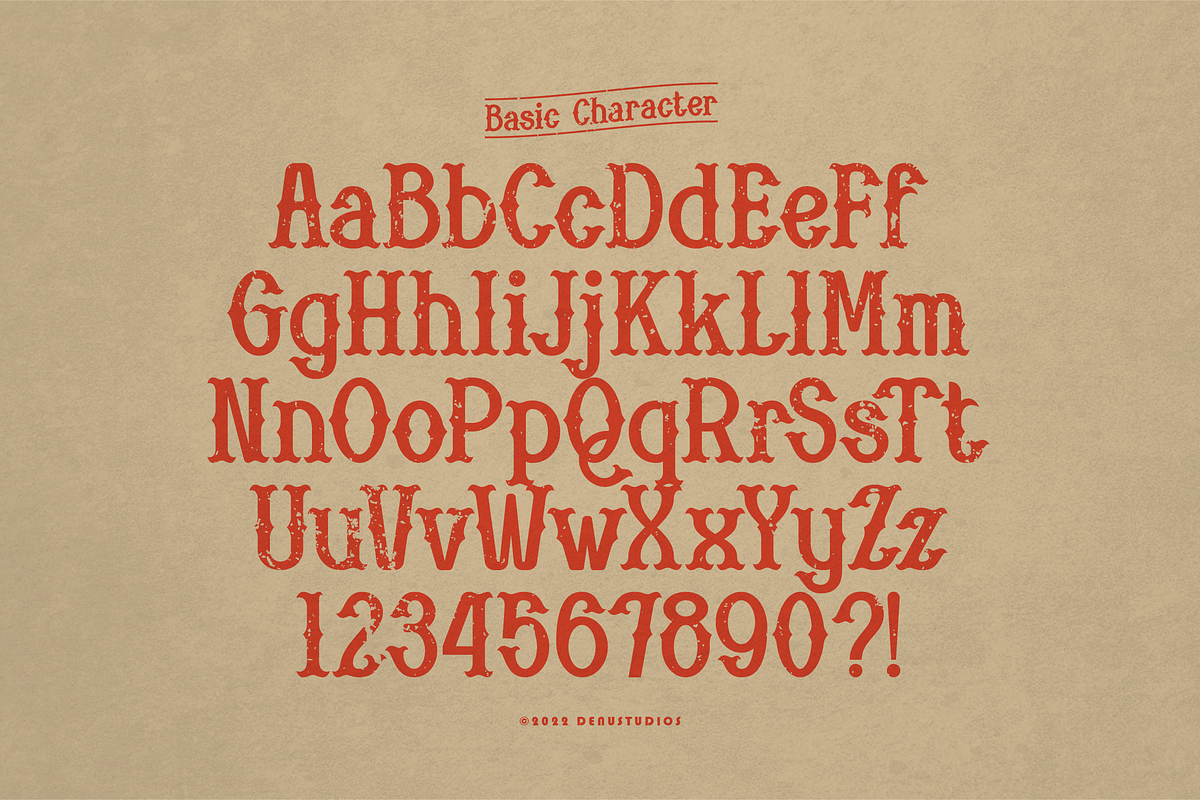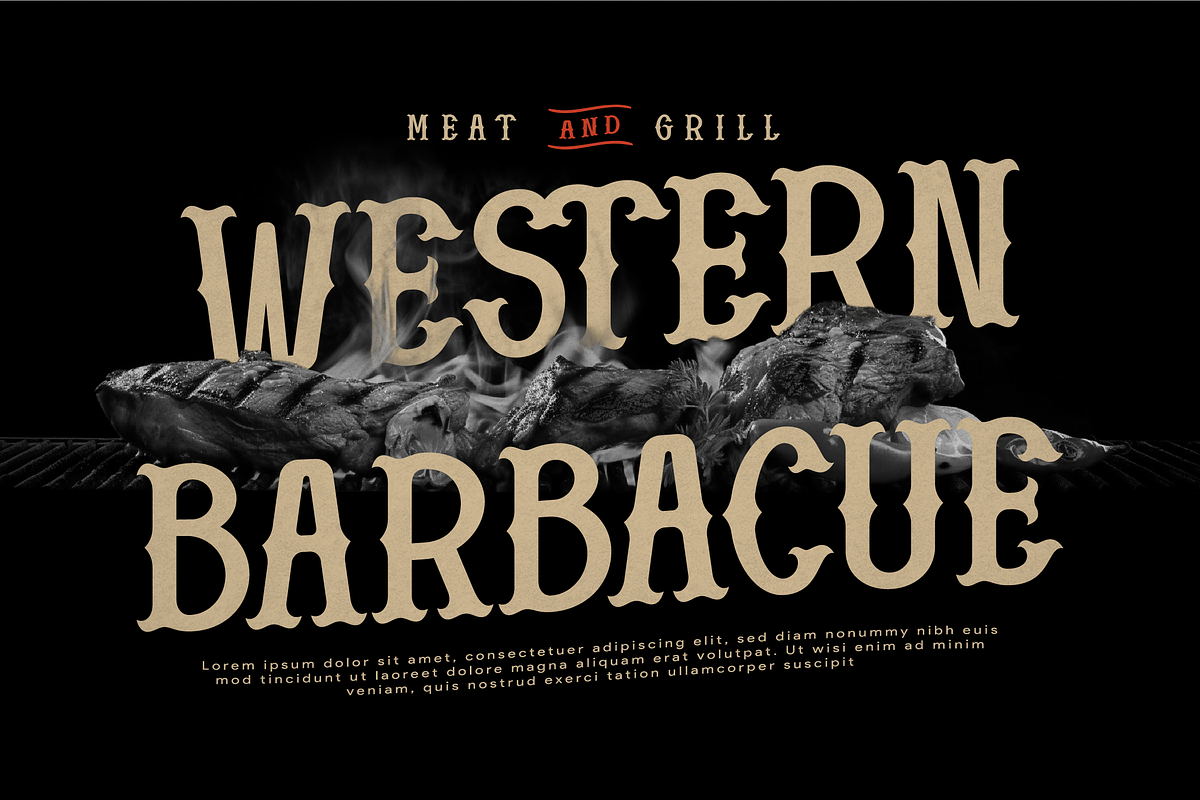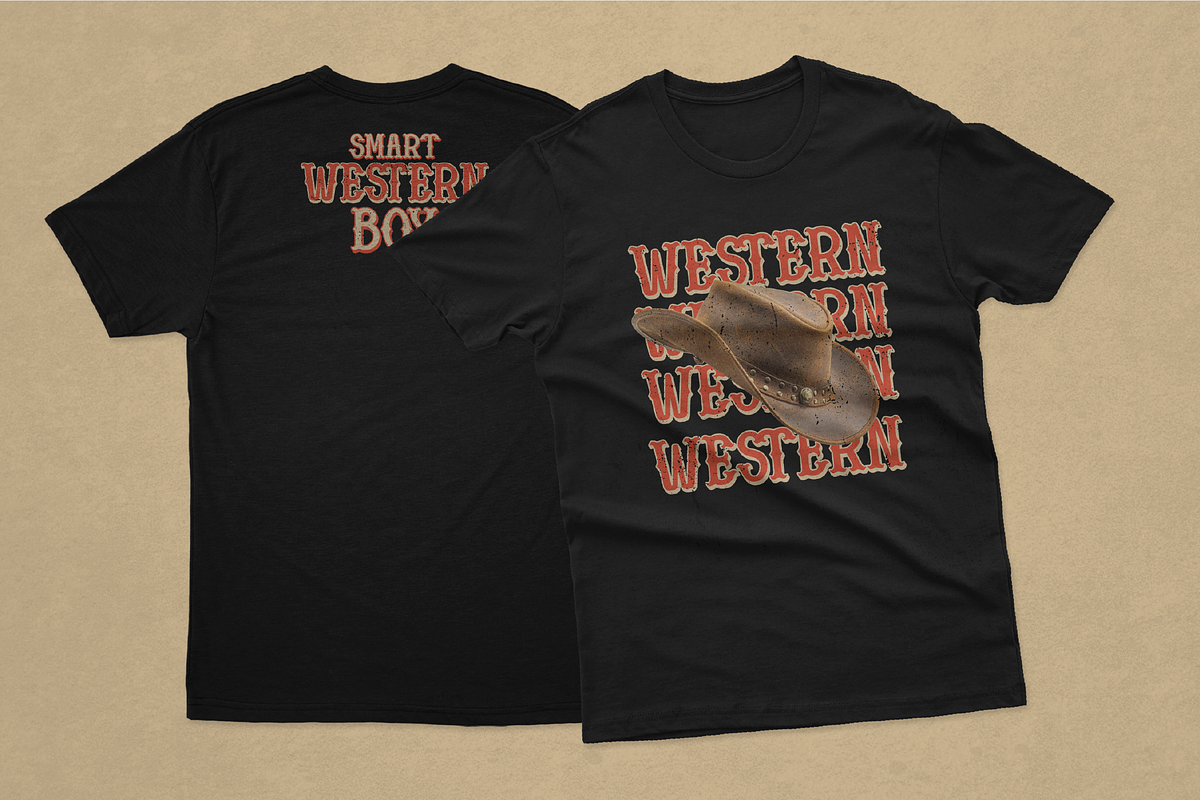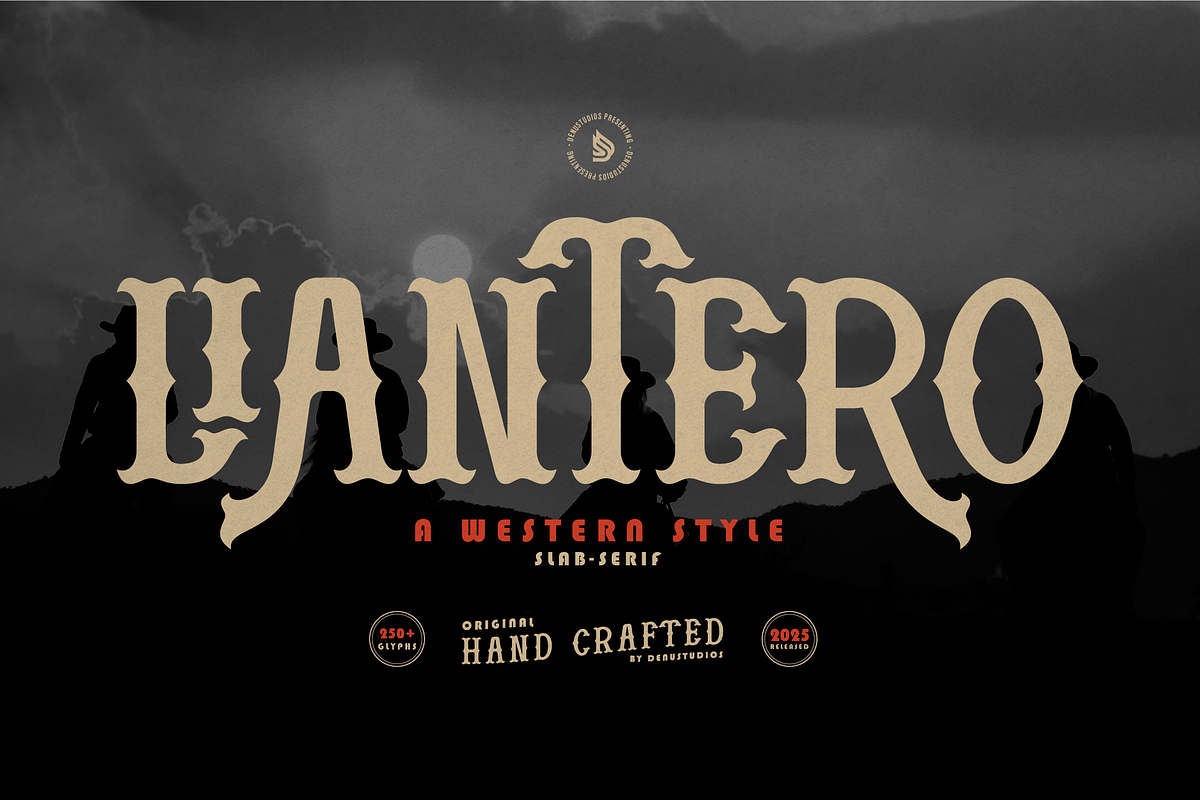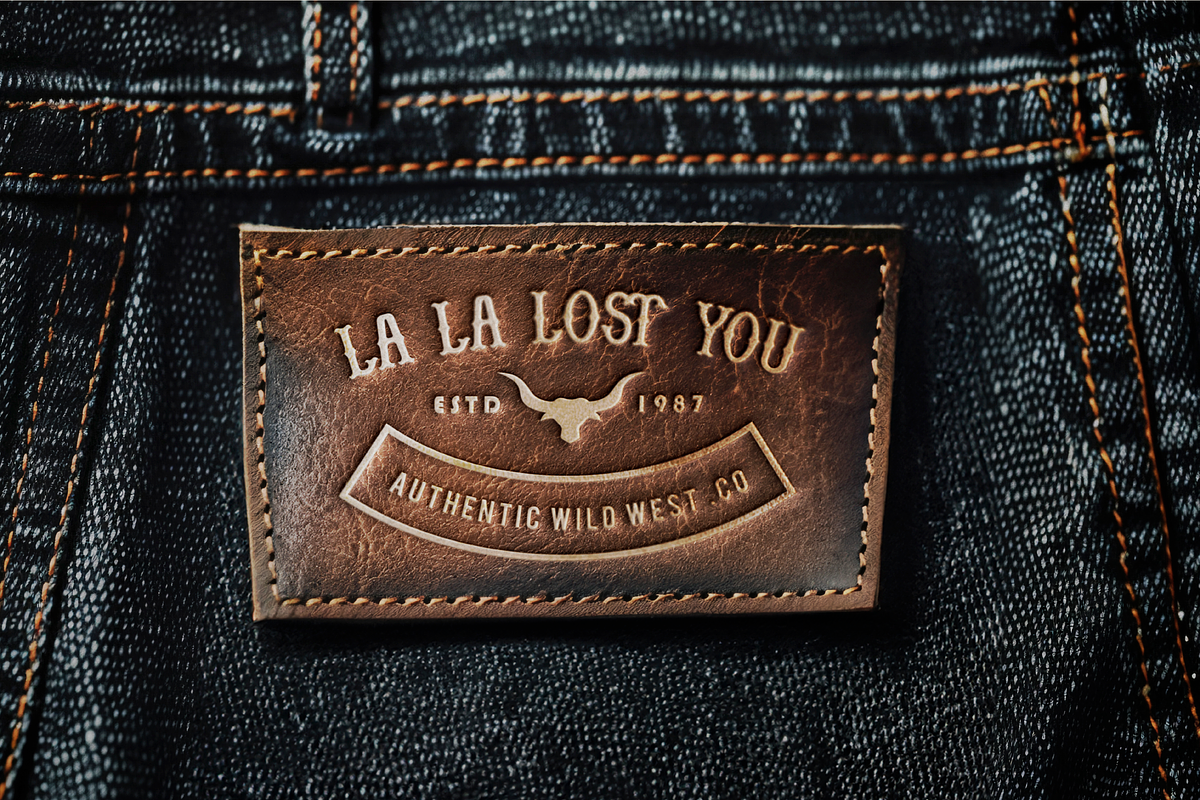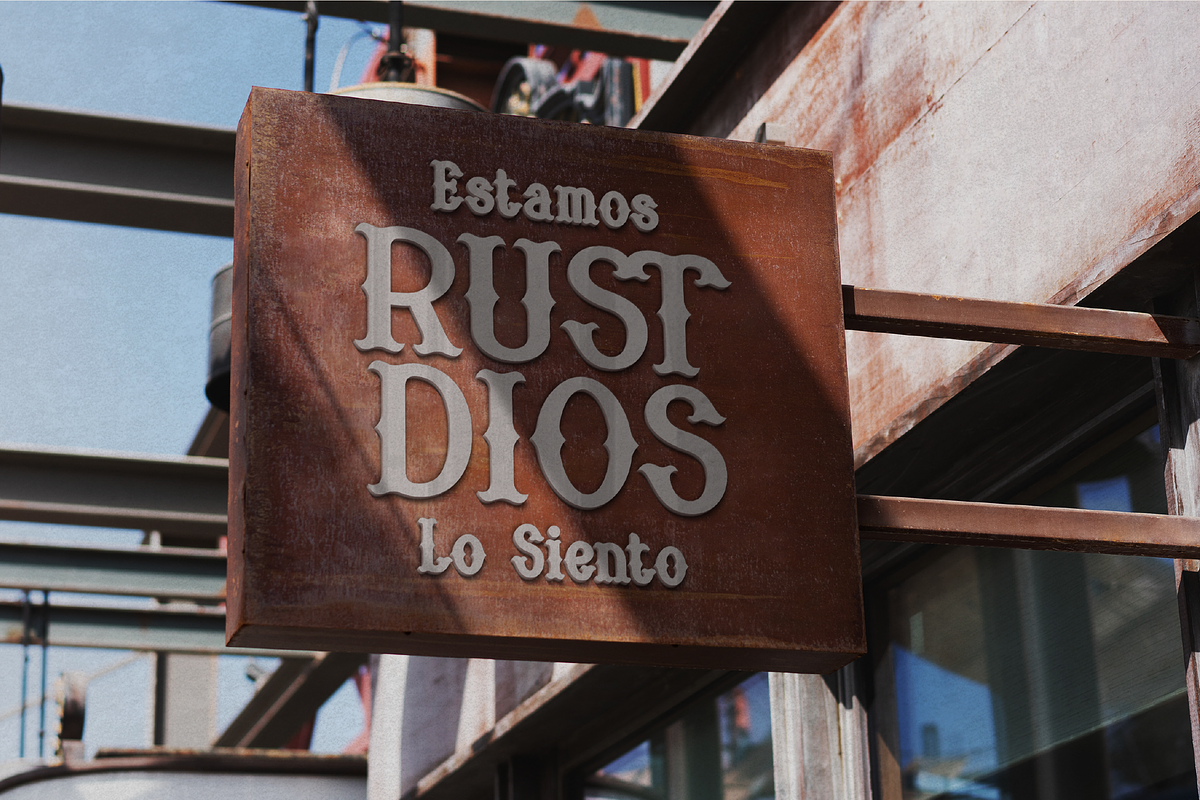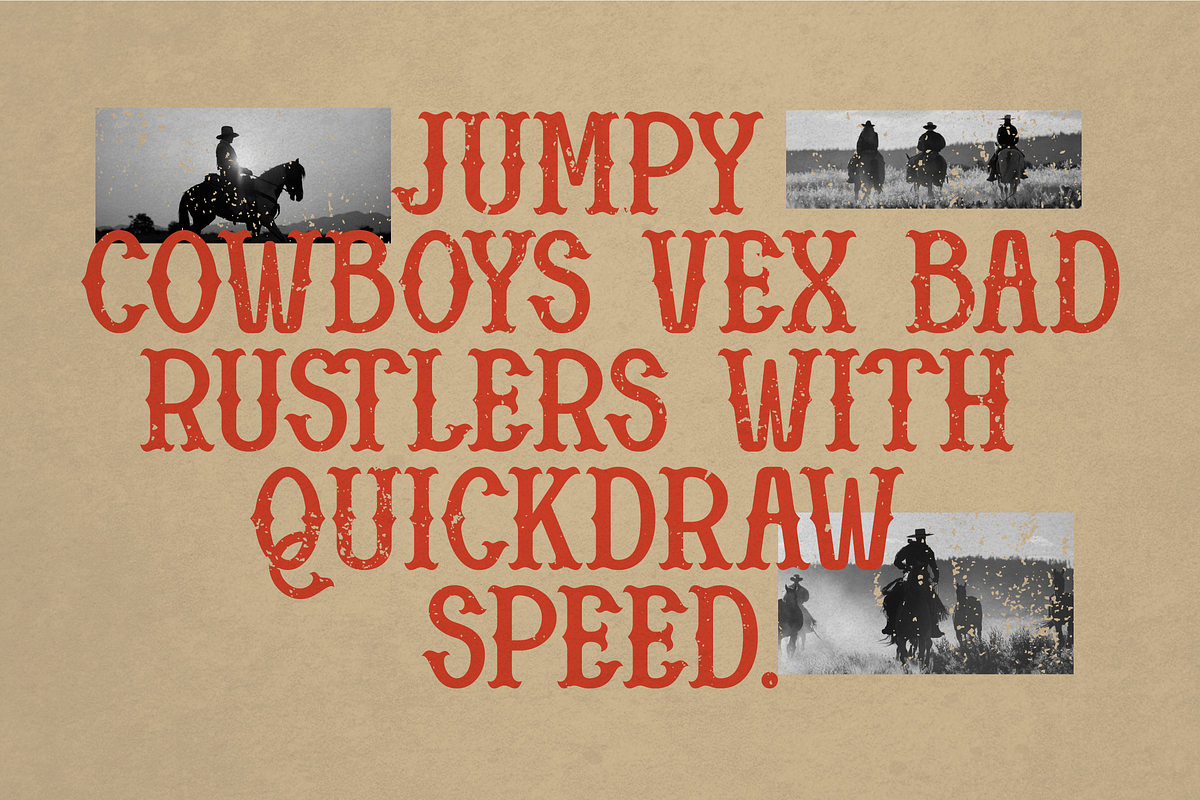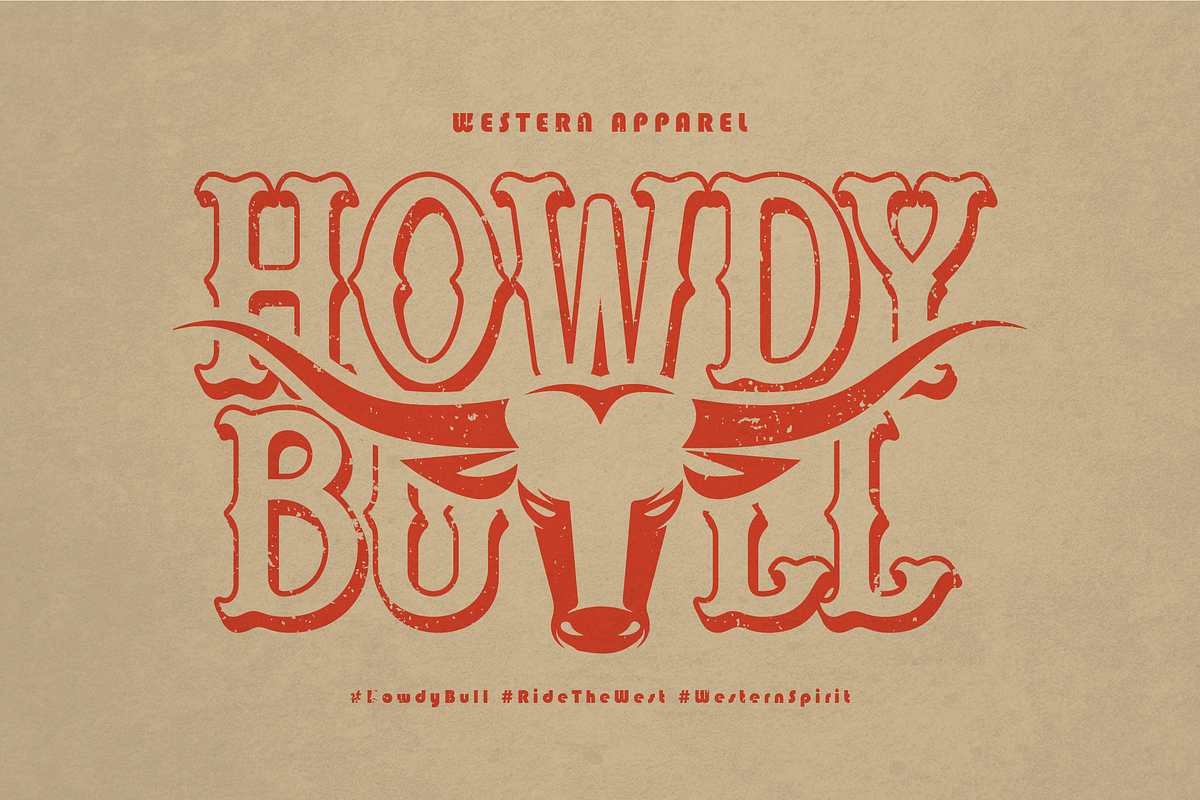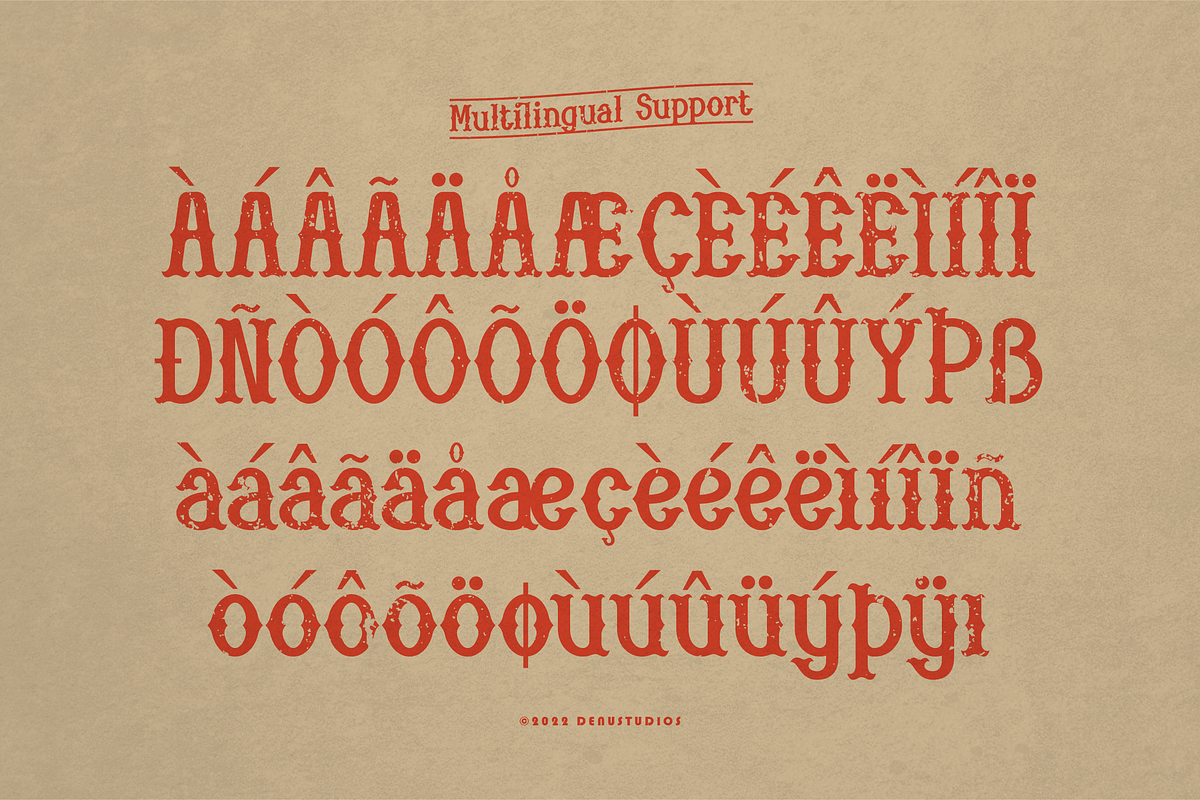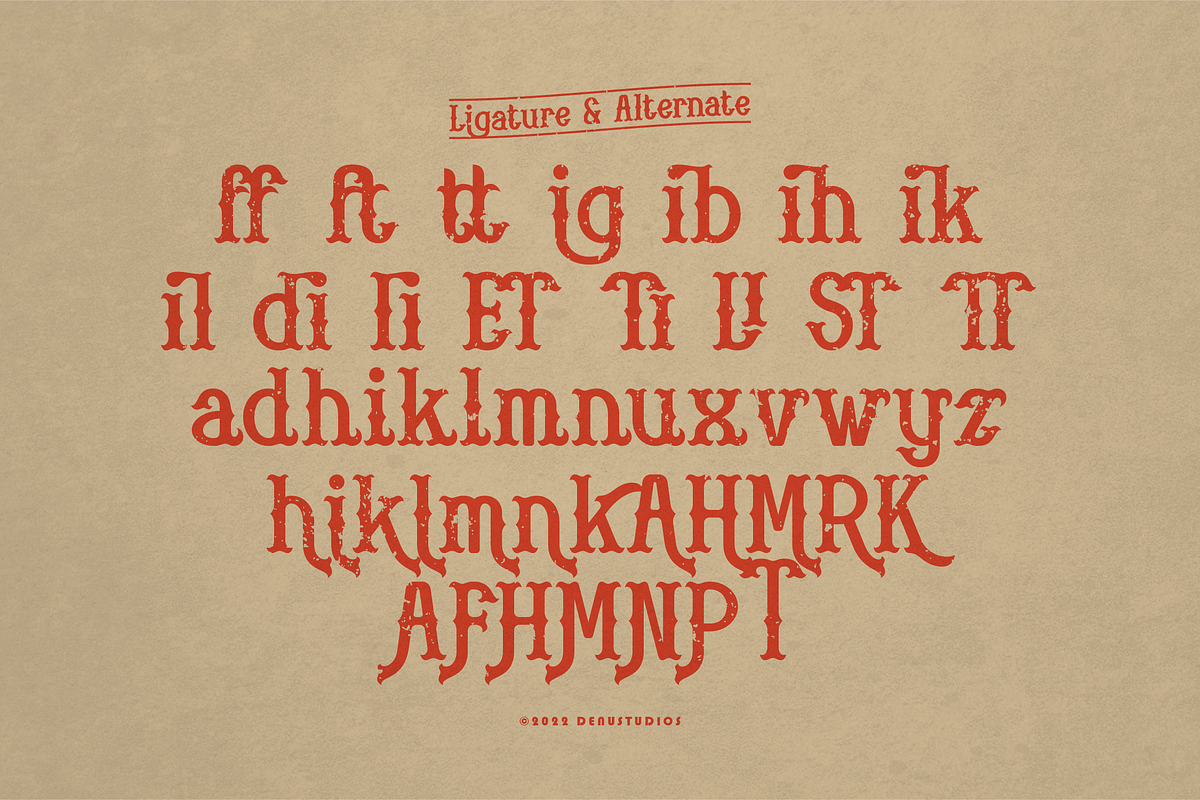
Liantero | Western Style
Liantero | Western Style, from Denustudios, suitable for any projects such as: logos, branding projects, homeware designs, product packaging, mugs, quotes, posters, shopping bags, t-shirts, book covers, name card, invitation cards, greeting cards, label, photography, watermark, special events, and all your other lovely projects that need a Western Style taste.